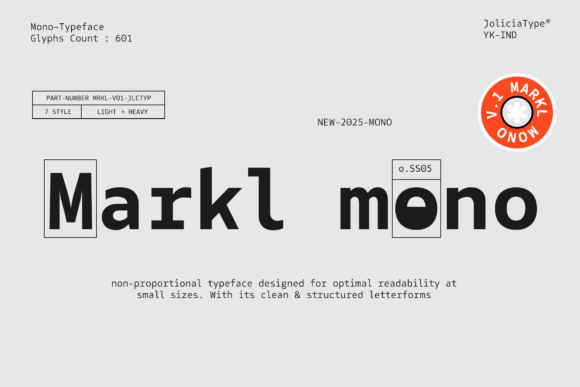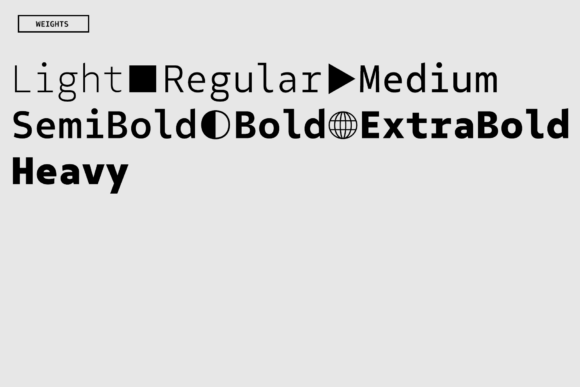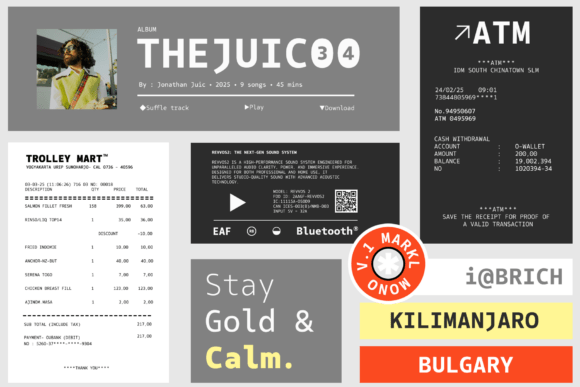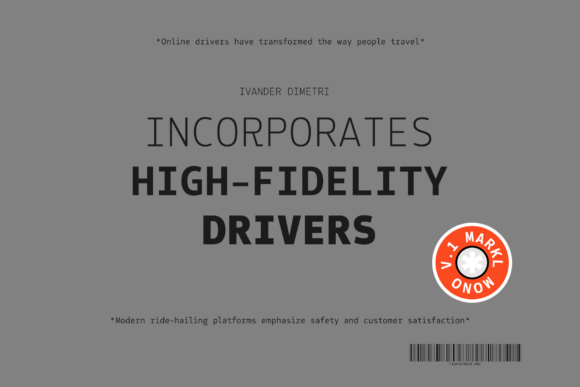
Markl Mono Font
About the Markl Mono Font
Add a touch of class to your work with the Markl Mono Font, a truly exceptional typeface. Markl Mono is a modern, non-proportional typeface designed for clarity and precision. With its structured letterforms and optimal readability at small sizes, this font is perfect for coding, technical documentation, and minimalist branding. Featuring 7 styles from light to heavy, Markl Mono balances functionality with a contemporary aesthetic.
Its clean, geometric structure makes Markl Mono ideal for headlines, short text blocks in branding materials, and technical interfaces requiring high legibility. However, its monospaced nature limits its effectiveness in body text or long-form content where proportional fonts offer better readability. Avoid using it for extensive paragraphs or situations demanding a softer, more organic feel.
Markl Mono’s core personality is modern and precise, lending itself well to tech-focused brands, minimalist designs, and projects emphasizing clarity and functionality. It pairs effectively with a clean sans-serif like Lato for a balanced contrast, or a more playful script font like Pacifico for unexpected visual interest in branding applications.
Consider pairing it with a geometric sans-serif like Futura for a strong, corporate feel, or a warmer serif like Playfair Display for a sophisticated, yet technically grounded aesthetic.
Markl Mono Font Example